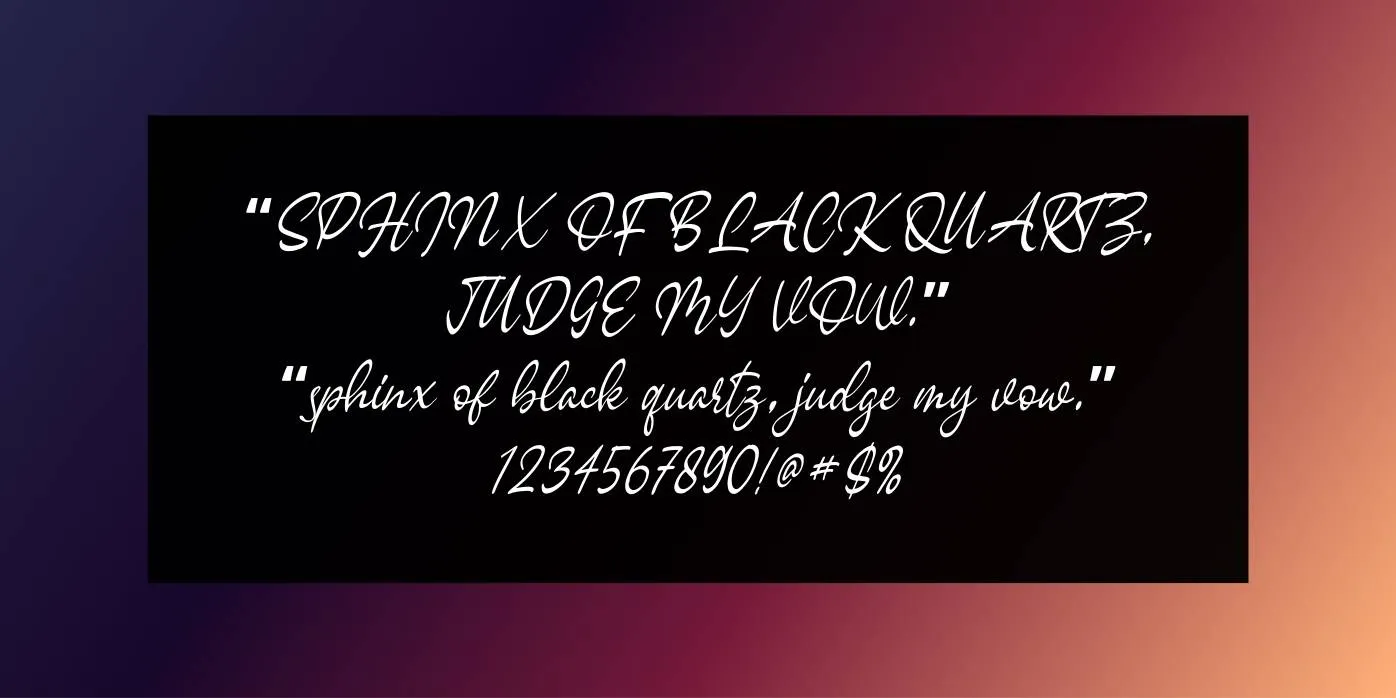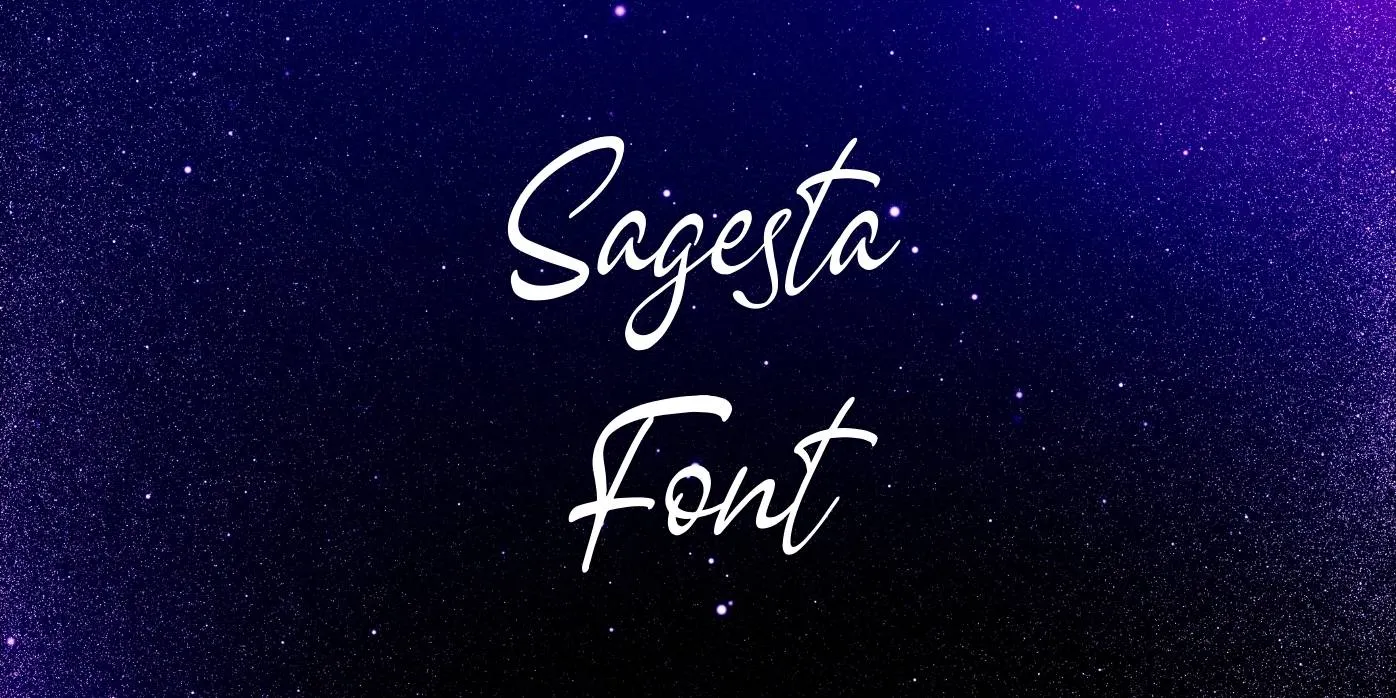
Sagesta Font
Sagesta Font is a script font that was created specifically for the branding of the Sagesta software company. The font has a very modern and sleek look that is perfect for any type of business or website. The Font is also available in both regular and italic versions, which makes it even more versatile. The Font was created by typeface designer Juan Pablo del Peral, who has worked on many famous fonts.
This makes the Font one of the most professional and high-quality fonts available. It is quite similar to the death note font and it has a pairing personality with that, so you can combine them and make something crazy stuff. This font is perfect for both pairing and copy-paste functions. If you are looking for a modern and stylish font for your business or website, then this font is definitely worth considering.